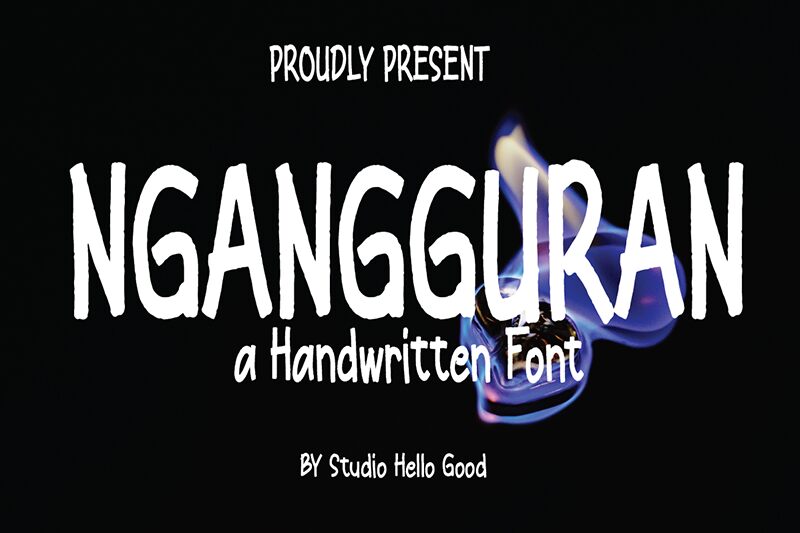
Ngangguran
Ngangguran font by Studio Hello Good is a comic display typeface with a friendly attitude. Its casual and approachable style along with its quirky character deliver the right amount of modernity for attractive projects. Each letter’s shape is non-conventional but not too extreme to remain easily readable and suitable for fun creations.
Use this font in amazing posters, invitations, greeting cards, packaging designs, website designs or mobile applications. Other amazing ideas include social media banners and posts as well as custom t-shirts and art prints. Impressive branding elements can also be made that mix nicely with existing identities or inspire new ones!